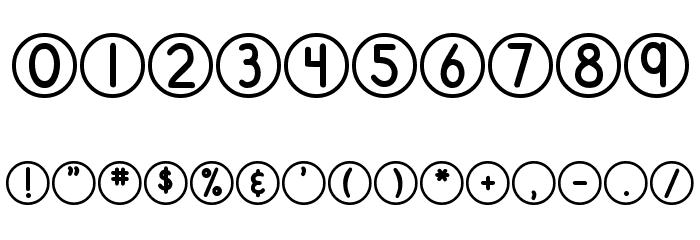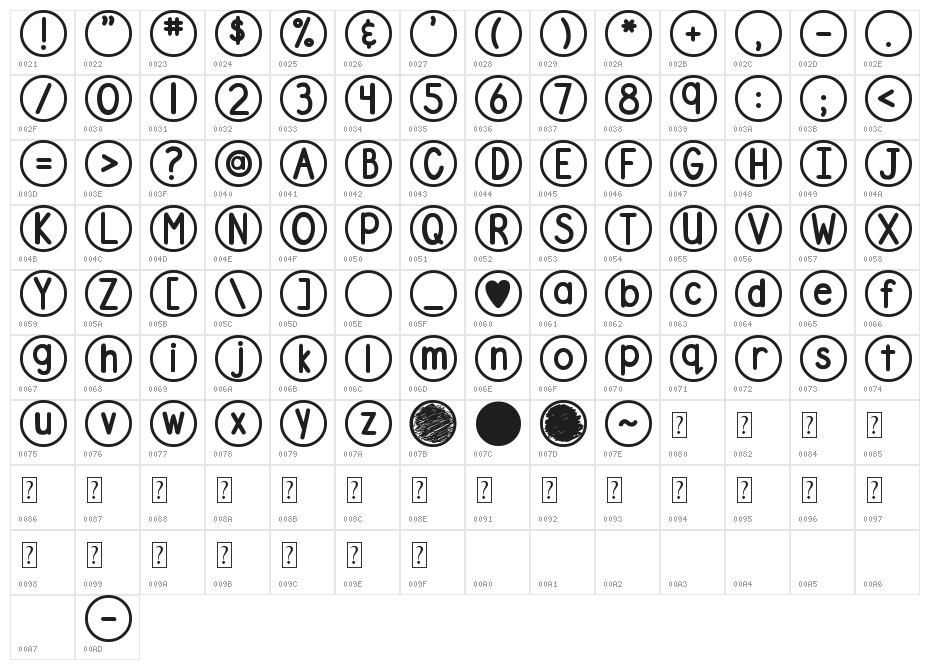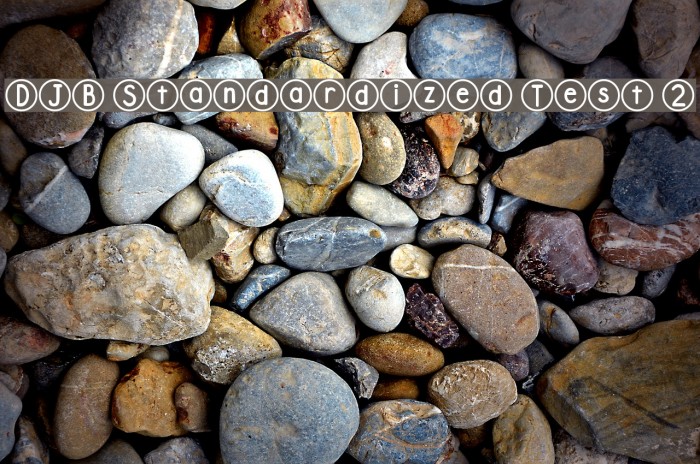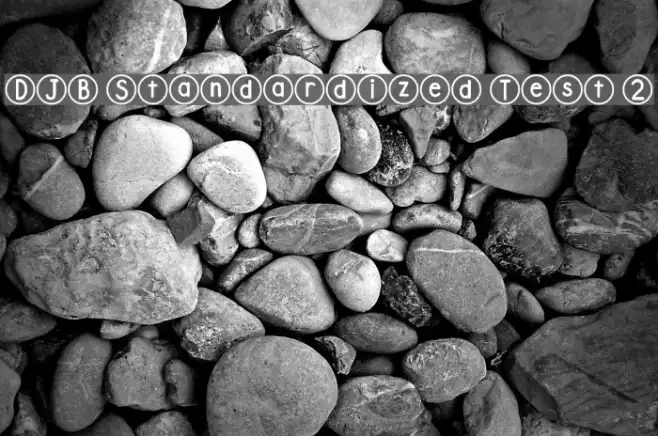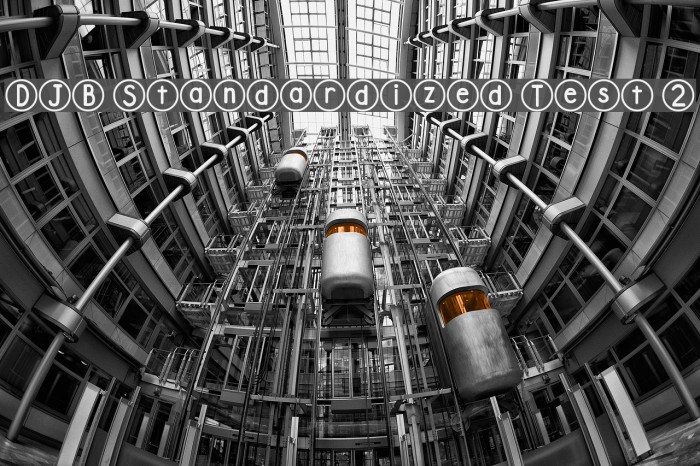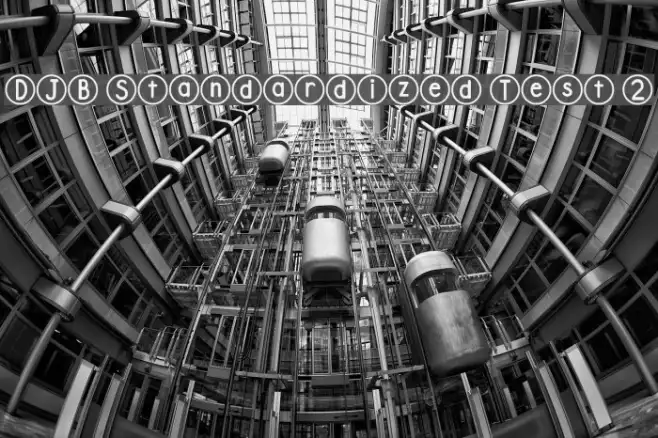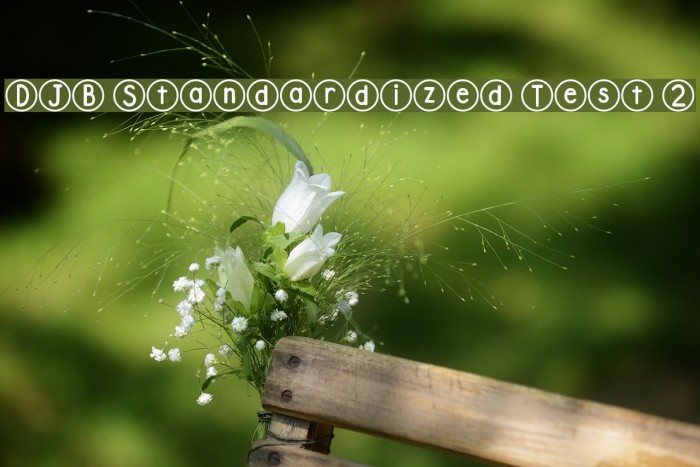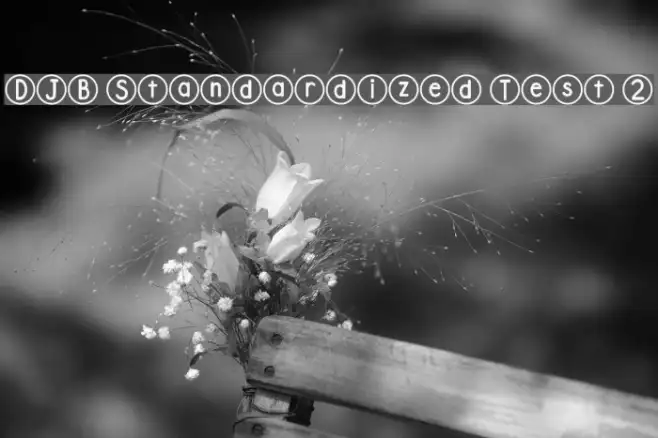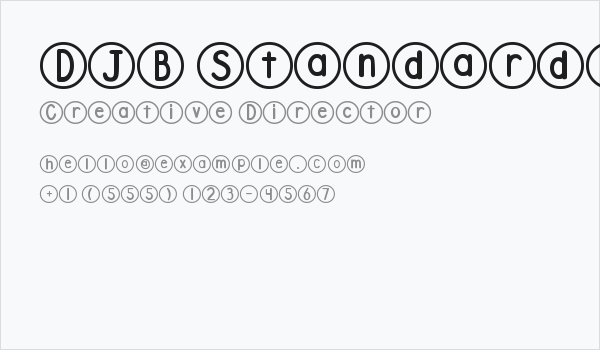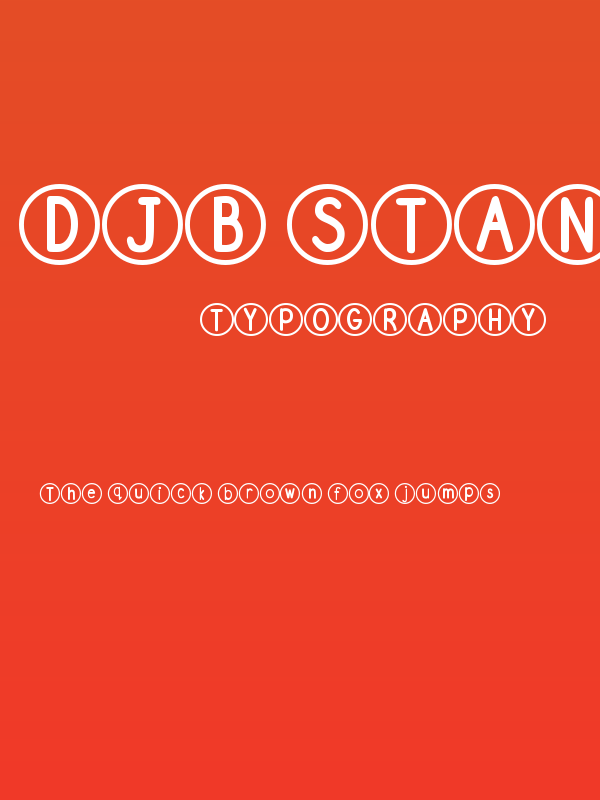
DJB Standardized Test 2 Font
DJB Standardized Test 2 Description
This font features a playful and unique design where each character is enclosed within a circle, creating a distinct and eye-catching appearance. The letters are bold and rounded, offering a friendly and approachable feel. The uniformity of the circular enclosures provides a cohesive look, making it ideal for projects that require a touch of whimsy or creativity. The characters are evenly spaced within their circles, ensuring readability while maintaining the decorative style. This font is suitable for various creative applications, including children's books, educational materials, and playful branding projects.
Overall StylePlayful, Decorative
Use CaseHeadlines, Logos, Creative Designs
Proposed ProjectsIdeal for children's books, educational materials, playful branding, and creative designs.